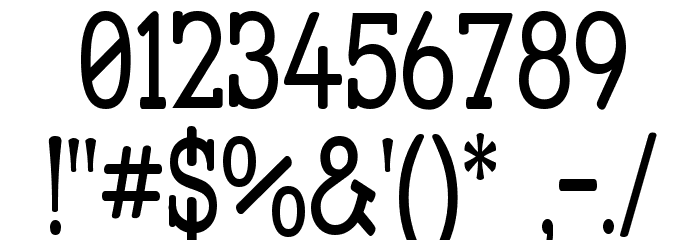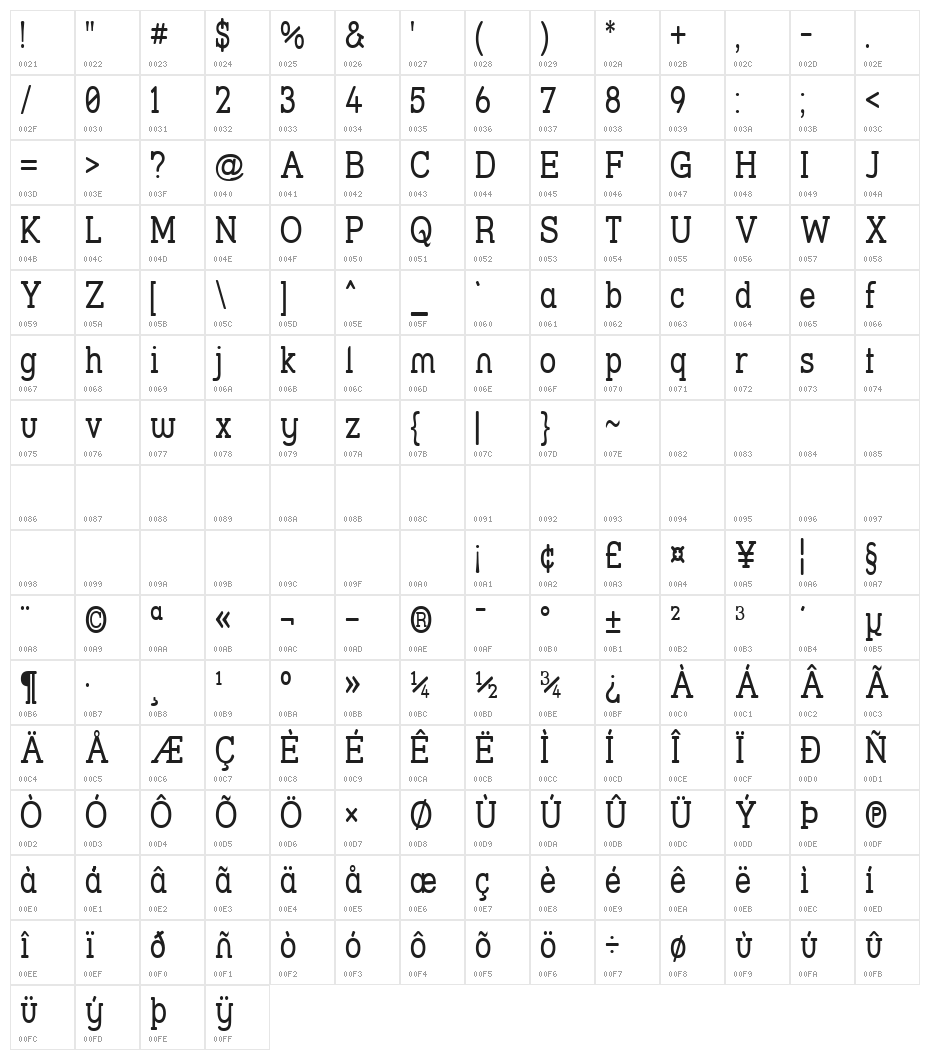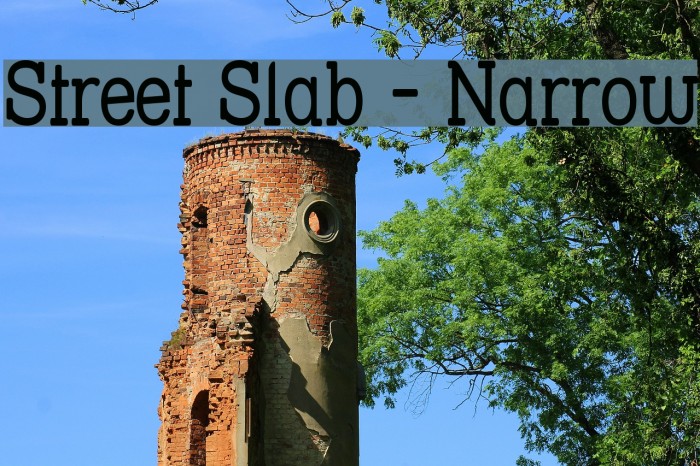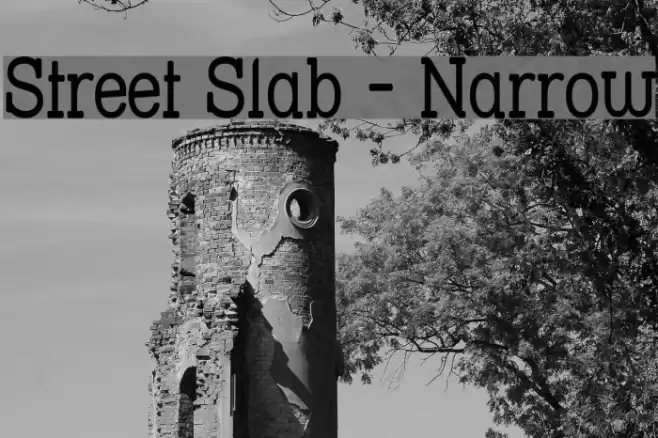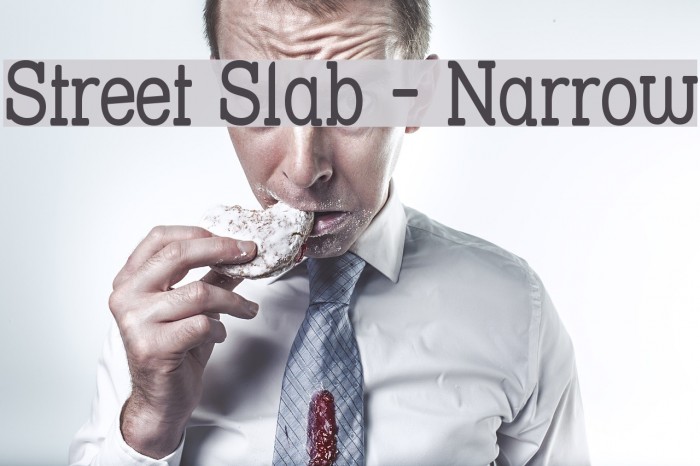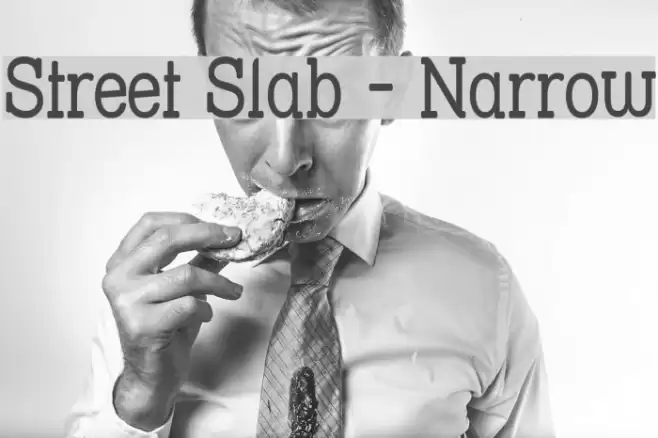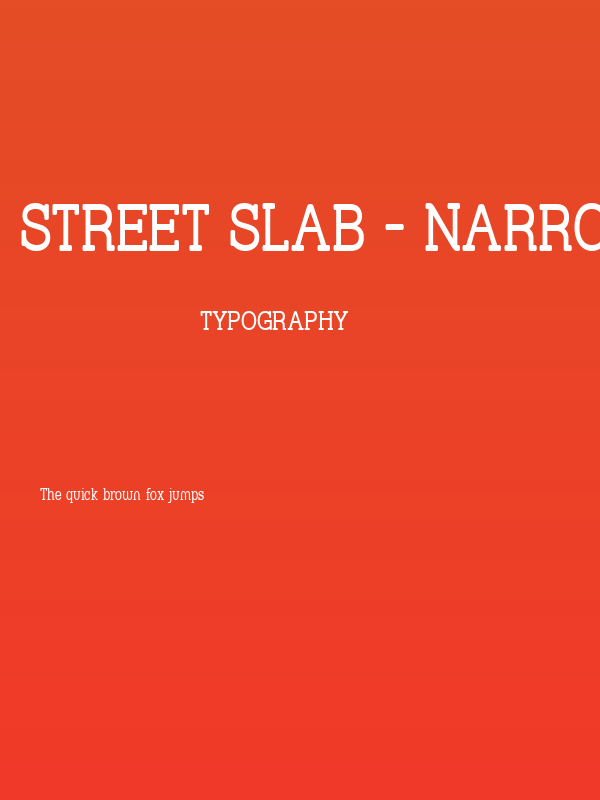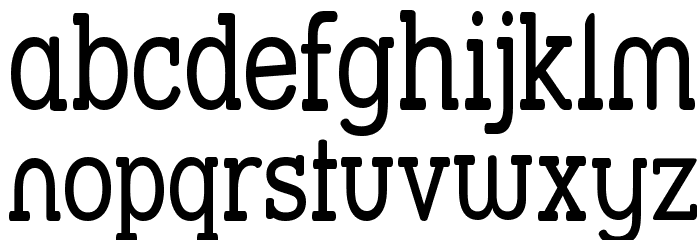
Street Slab - Narrow Font
Street Slab - Narrow Description
This font features a robust slab serif style with a narrow width, giving it a distinctive and modern appearance. The characters are bold and have a strong presence, making them ideal for impactful designs. The uppercase letters are tall and commanding, while the lowercase letters maintain a consistent height, providing a harmonious balance. The numerals are clear and easily readable, and the special characters are well-defined, ensuring versatility in various design contexts. The overall design is clean and straightforward, with a slight vintage touch due to the slab serifs, making it suitable for both contemporary and classic projects.
| Proposed Projects | Ideal for headlines, posters, branding, and signage where a strong, impactful font is needed. |